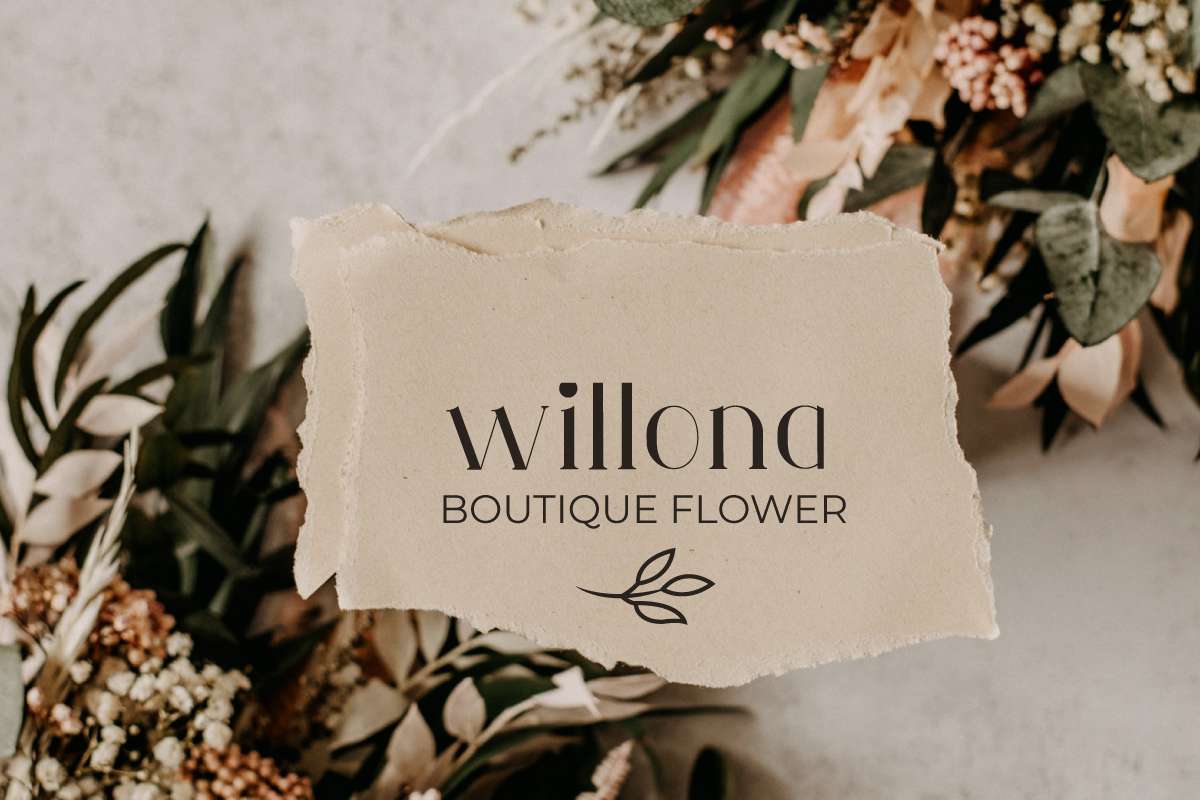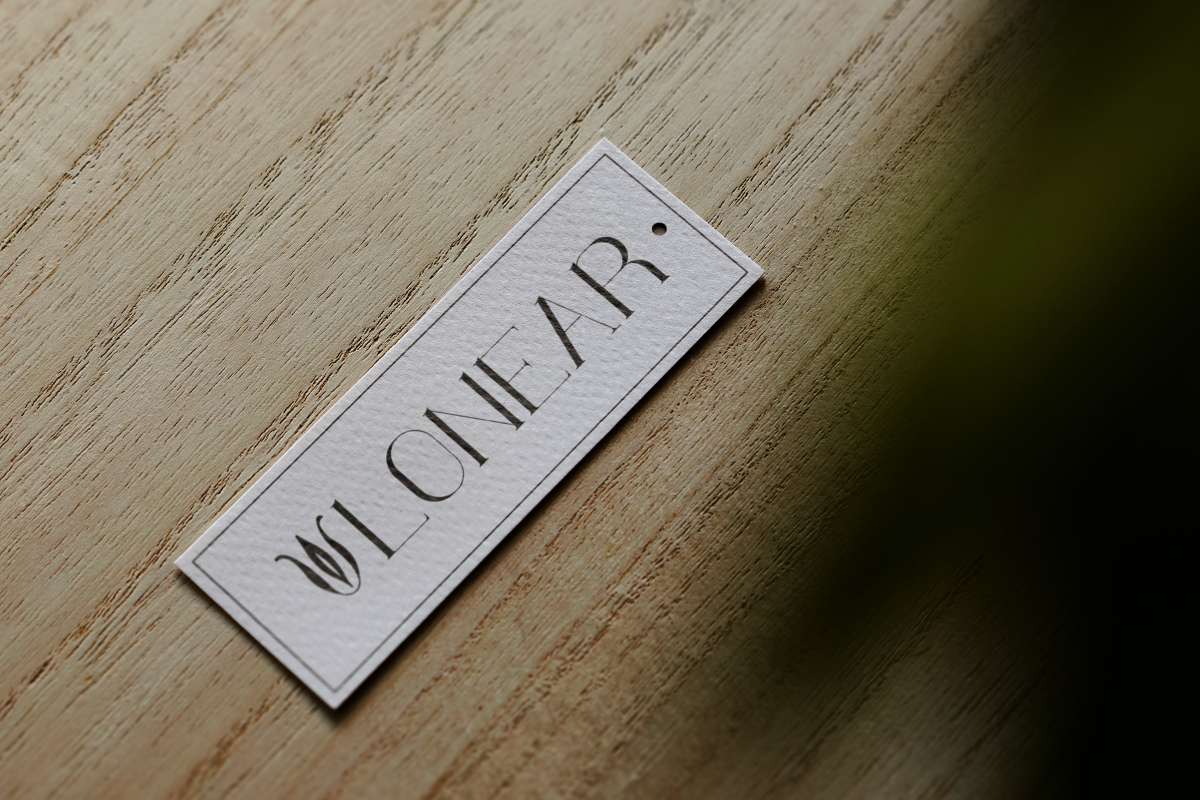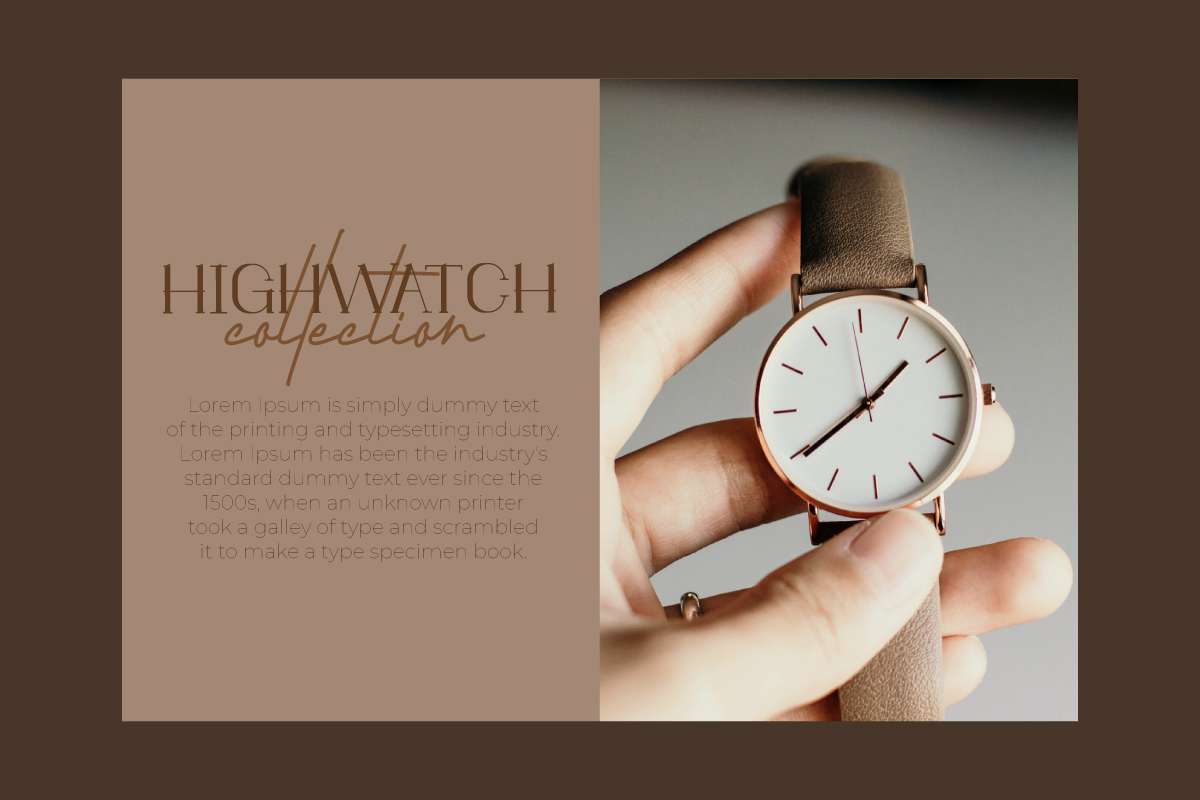
Monodic Font
Monodic Serif Font
This font is remotely made by RaisProject team in Indonesia. The font was handcrafted for any your special projects including : advertising, headlines, invitation, logo branding, magazine, packaging products, signage, social media posts, or and any projects that need unique casual style. The industries for this font is Beauty, Clothing, Entertainment, Headline, Magazine, Wedding etc. Monodic Font including full set of upper and lower case letters, numbers and Multi language characters. This font also has 3 different styles, including: Regular, Italic and Bold